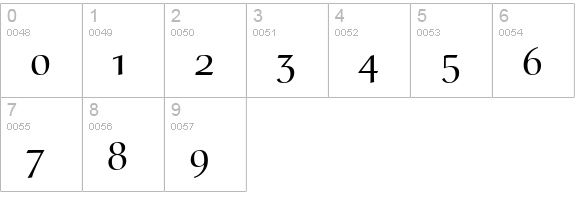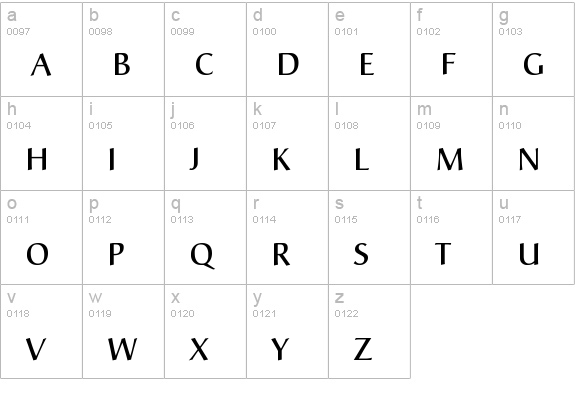
Christiana Regular Small Caps & Oldstyle Figures Font Details
Christiana Regular Small Caps & Oldstyle Figures is the standard, neutral variant in the Christiana typeface family \xE2\x80\x94 well suited to general body text, paragraphs, and standard typographic work.
Christiana Regular Small Caps & Oldstyle Figures is a sophisticated and elegant font that effortlessly combines traditional small caps with charming oldstyle figures. This versatile typeface exudes a timeless appeal, making it perfect for a wide range of design projects. The Christiana Regular Small Caps & Oldstyle Figures font boasts a classic and refined aesthetic, with its carefully crafted letterforms lending a sense of sophistication to any text. The small caps add a touch of formality, while the oldstyle figures bring a sense of vintage charm to the overall design. What sets Christiana apart is not just its exquisite design, but also the fact that it is available for free download at FontsMarket.com. This means that designers and enthusiasts alike can easily access this premium font and use it in their projects without any cost. Whether you're working on a branding project, editorial design, or any other creative endeavor, Christiana Regular Small Caps & Oldstyle Figures is sure to elevate your work with its timeless and elegant appeal.